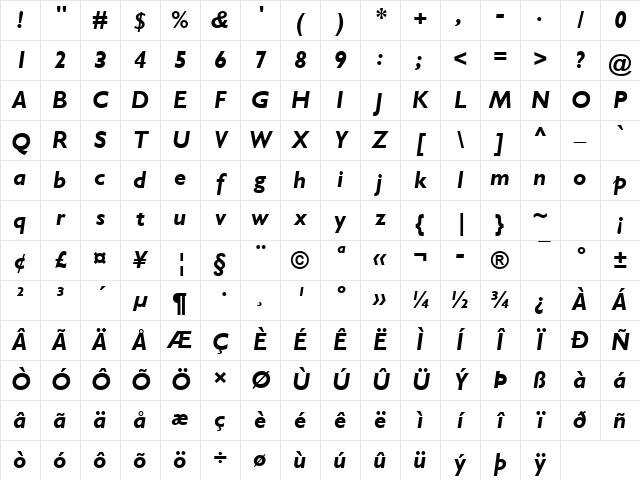
Complete Gill Sans MT Bold Italic glyph index. Displaying only characters natively supported by Gill Sans MT Bold Italic font.
Gill Sans MT is a composed and adaptable typeface that performs quietly and consistently across a wide range of design contexts. The slanted form adds forward momentum and visual energy. Its bold stroke weight gives it real presence on the page.
Pro Tip: Use Gill Sans MT for emphasis, pull quotes, and subheadings where its slanted energy can add rhythm to the layout.